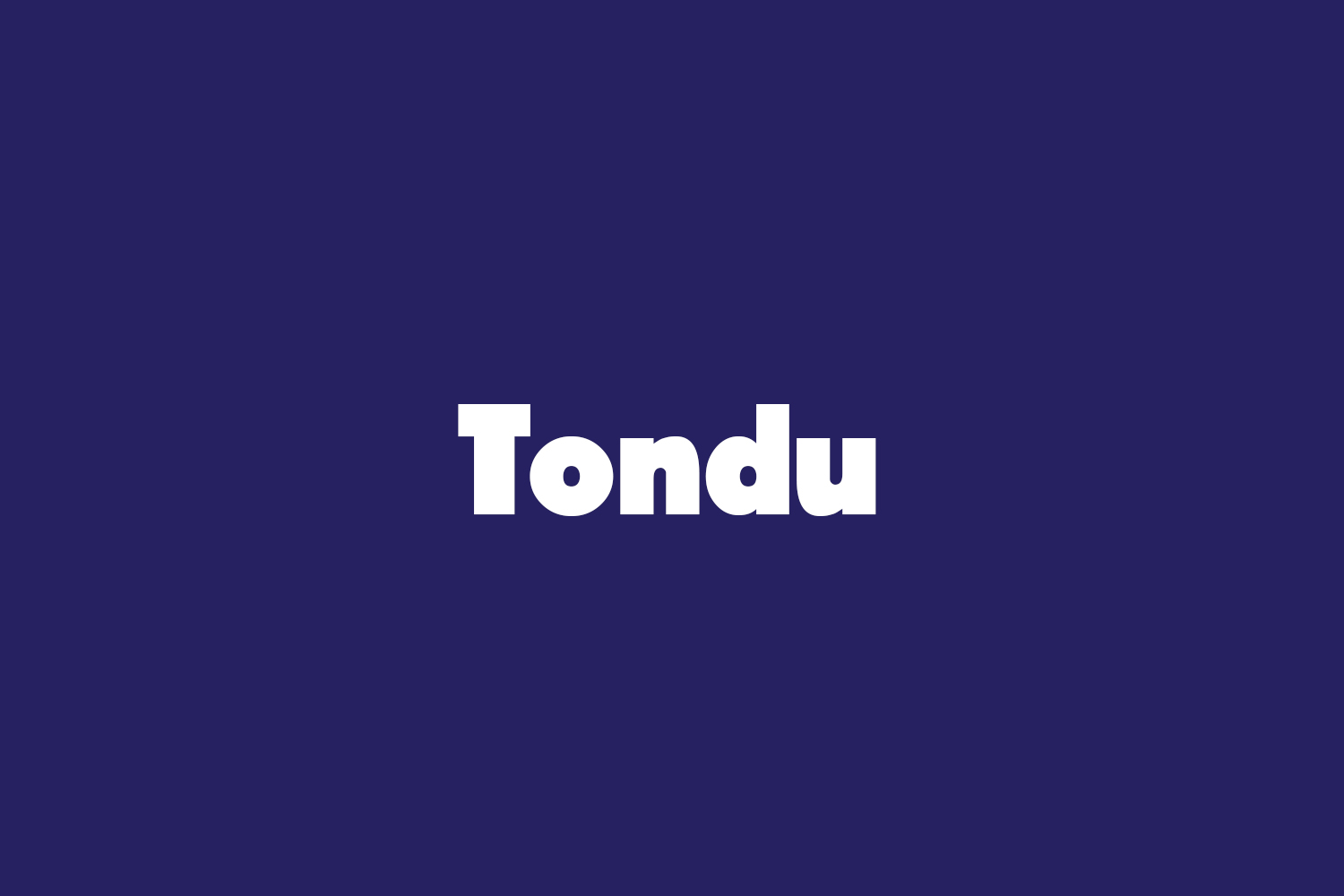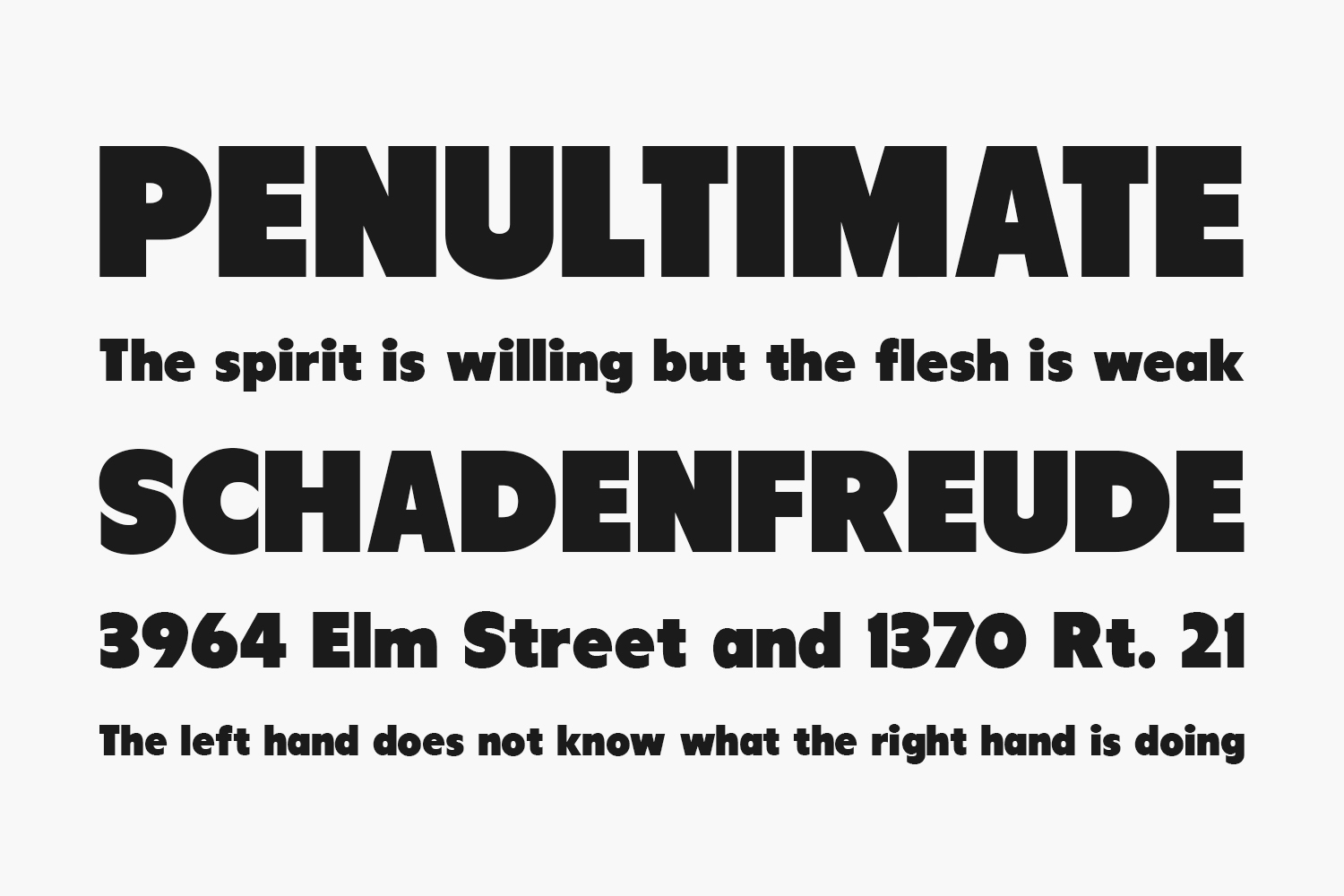
Tondu Free Font is a versatile display font that combines classic proportions with modern styling. The precise letter fit makes it perfect for use across signage, book jackets, packaging, posters and t-shirts. Details include an extended European character set, manually edited kerning and Euro symbol.
Designed by The Northern Block